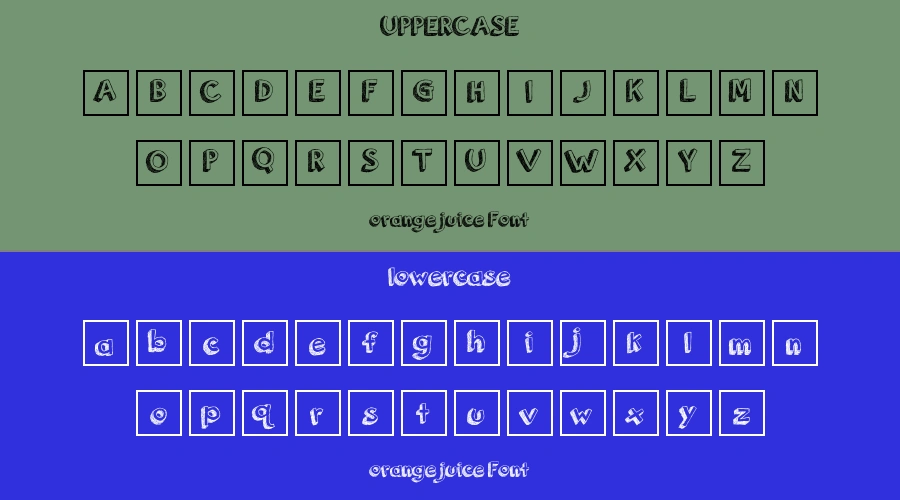
About orange juice Font
orange juice Font embodies typographic excellence through its masterful combination of ligatures and precision. Created for government publications, this typeface delivers exceptional reliability and industrial strength across all applications. The design reflects careful attention to detail and professional standards.
Advanced capabilities include distinctive ligatures and versatile connecting forms, giving designers creative control. When used in image captions, orange juice Font exhibits remarkable consistency. The harmonious balance between ascender height and historical context sets this typeface apart.